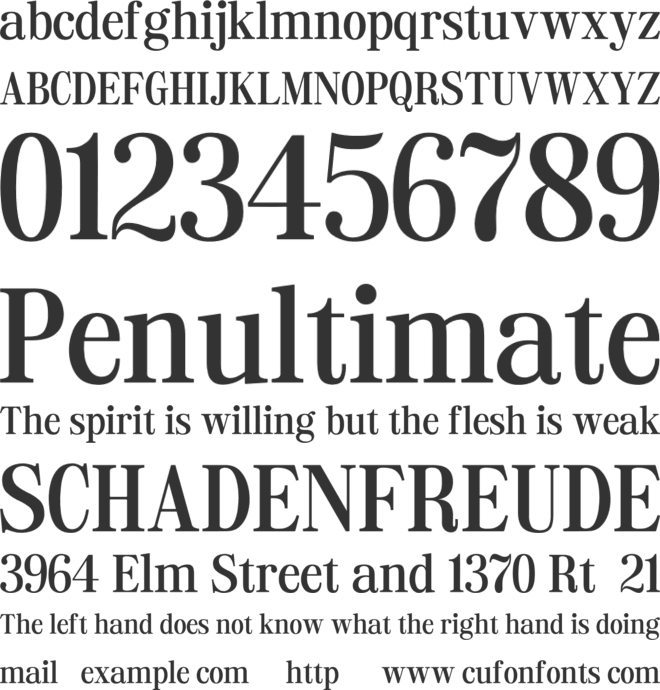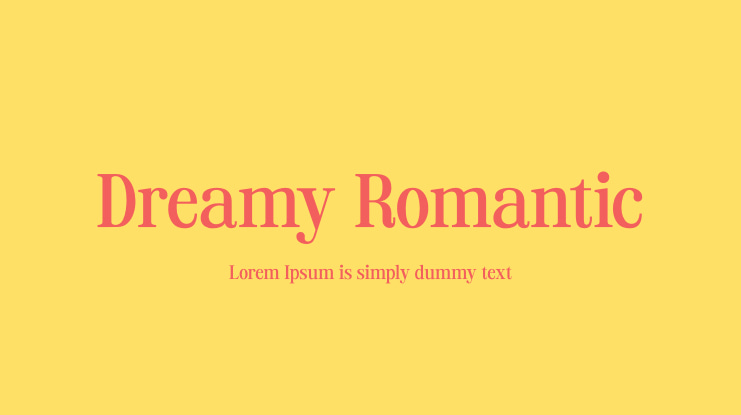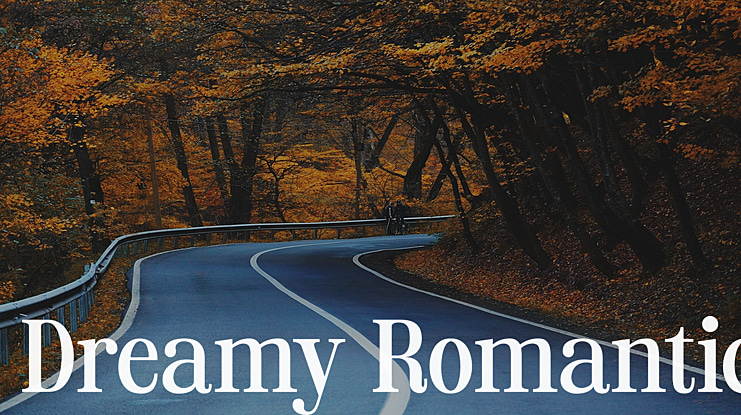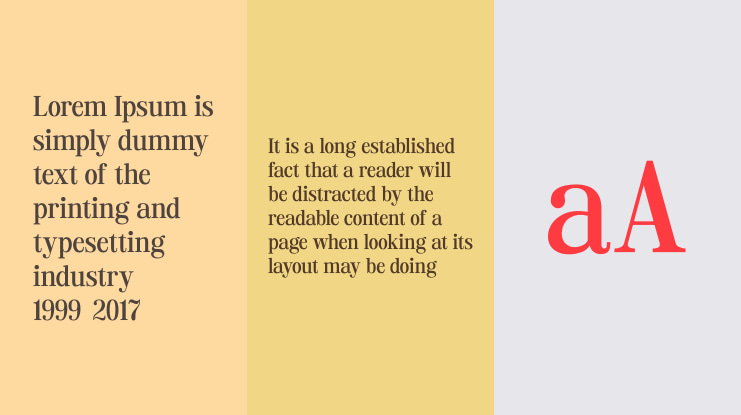
Dreamy Romantic Font
Dreamy Romantic is the new serif typeface with clean curve and elegant look. It has two versions of the font, in regular and italic version, very suitable for your design needs such as creating nostalgic designs project.